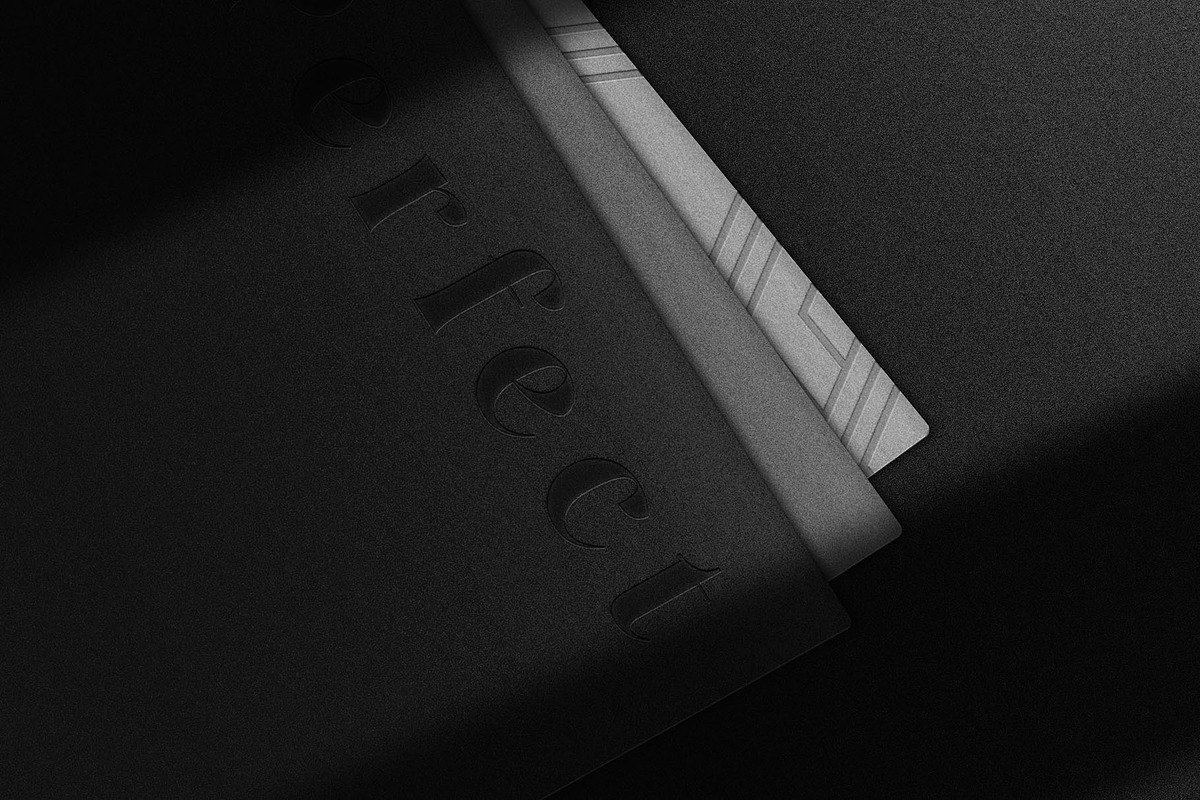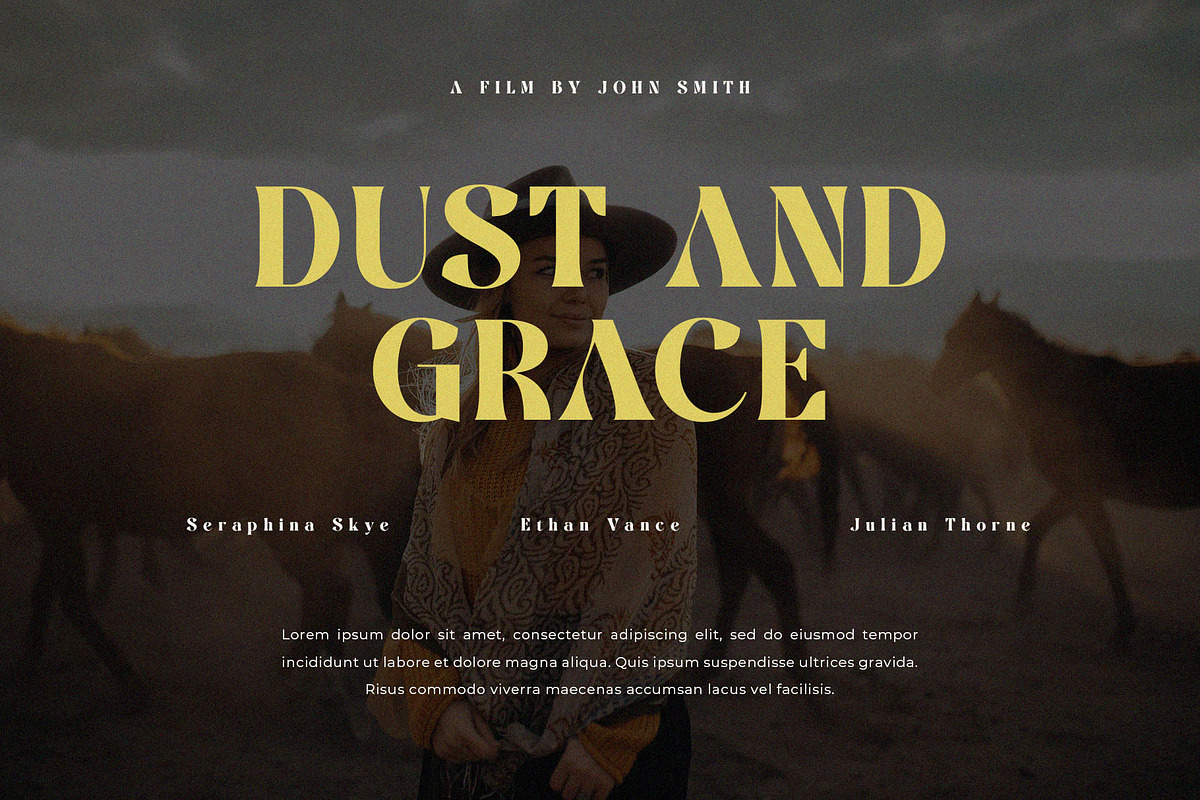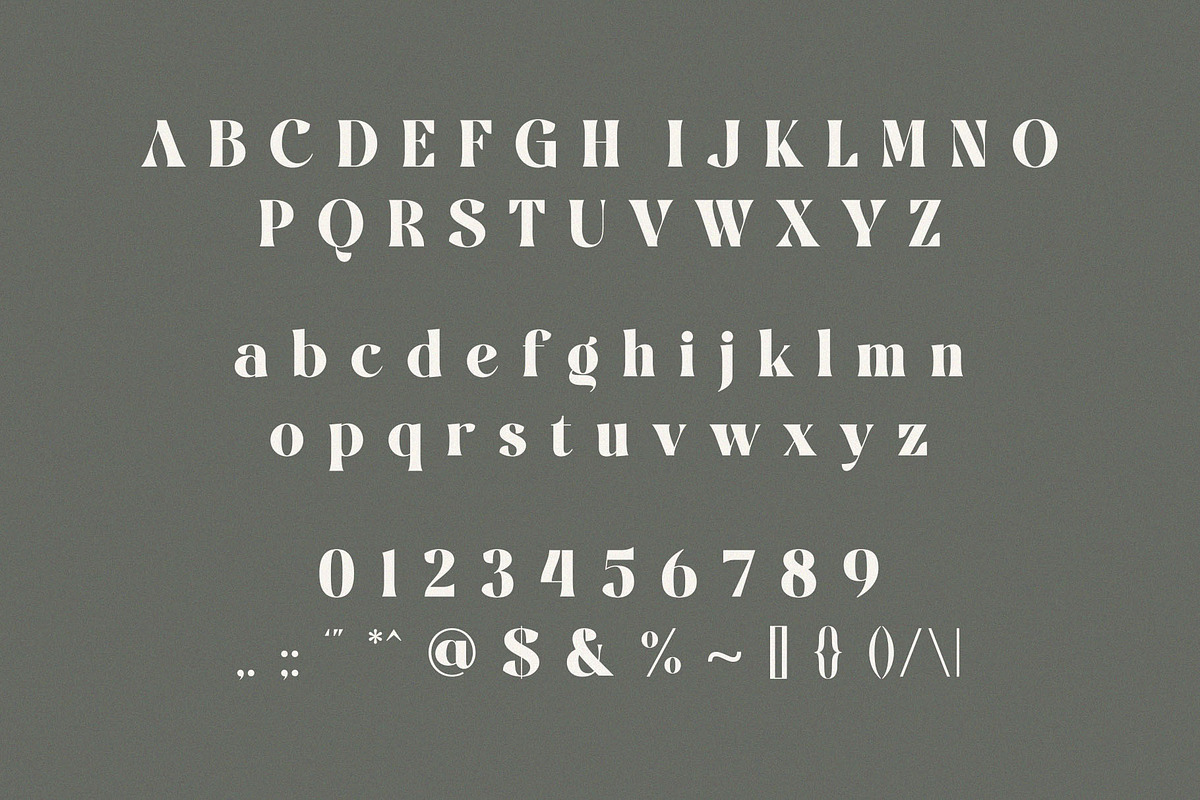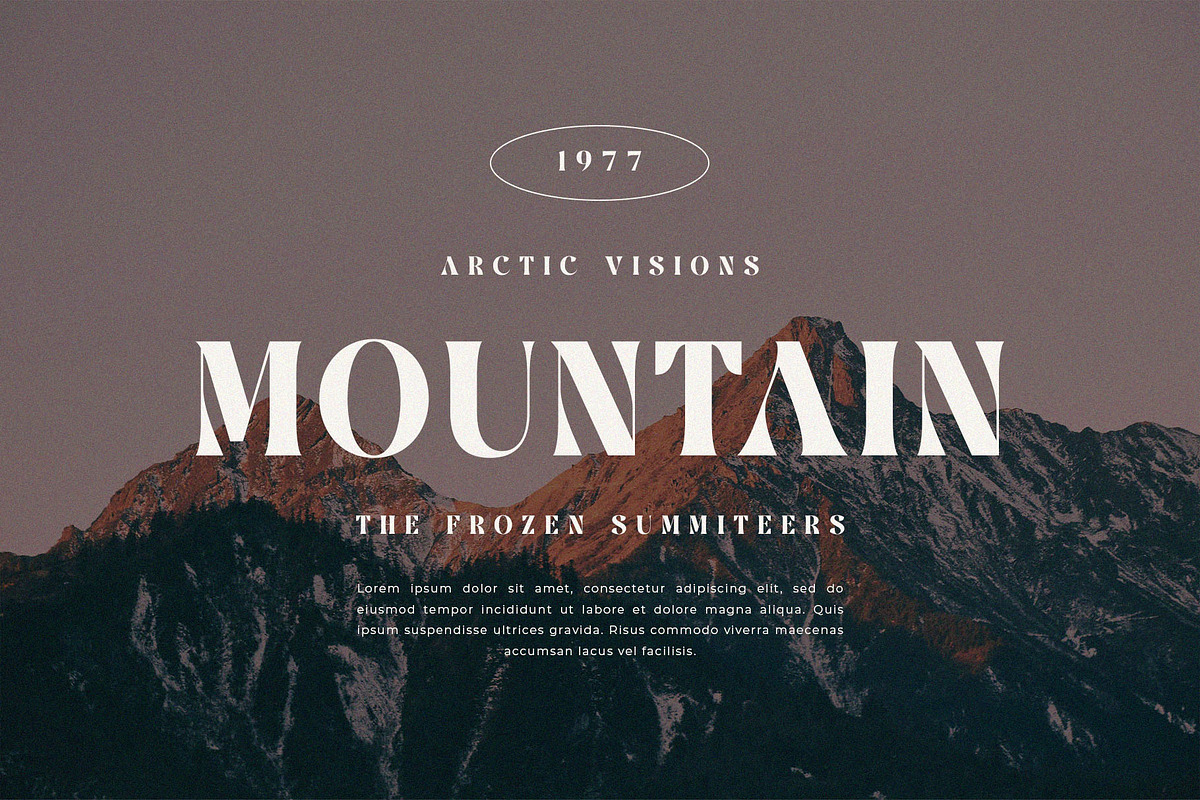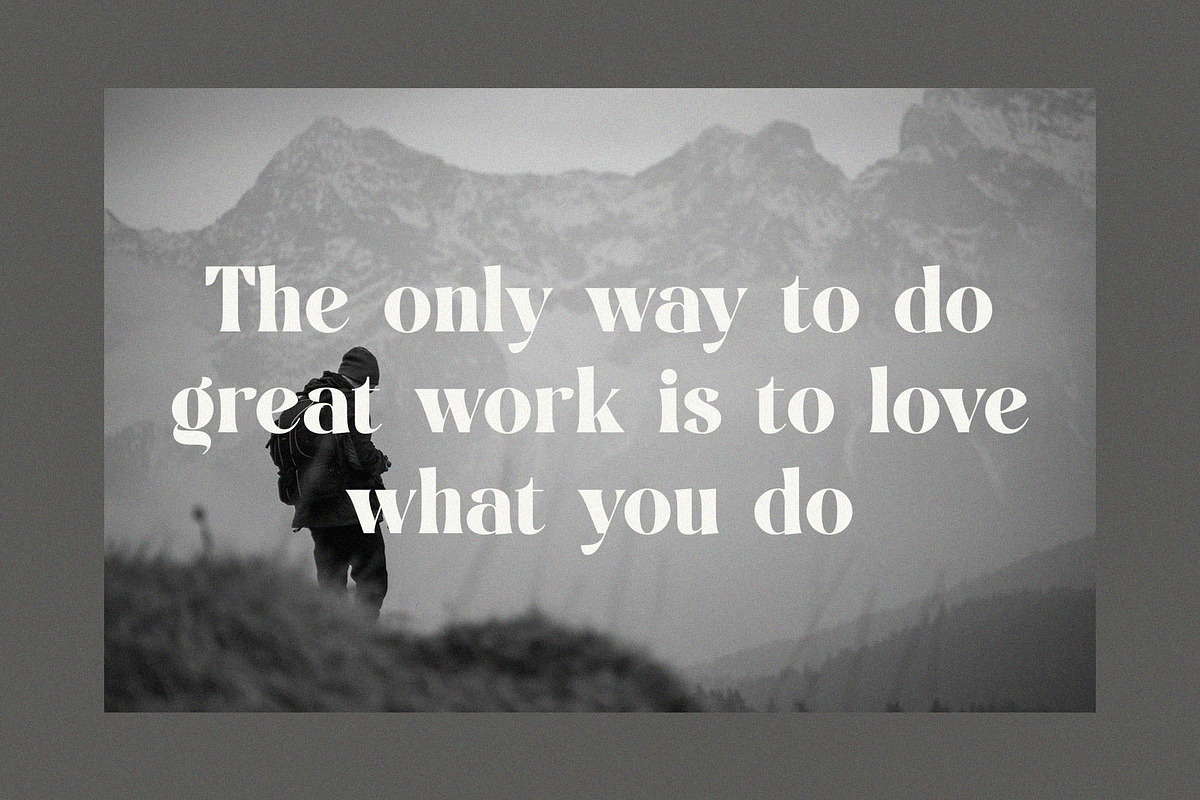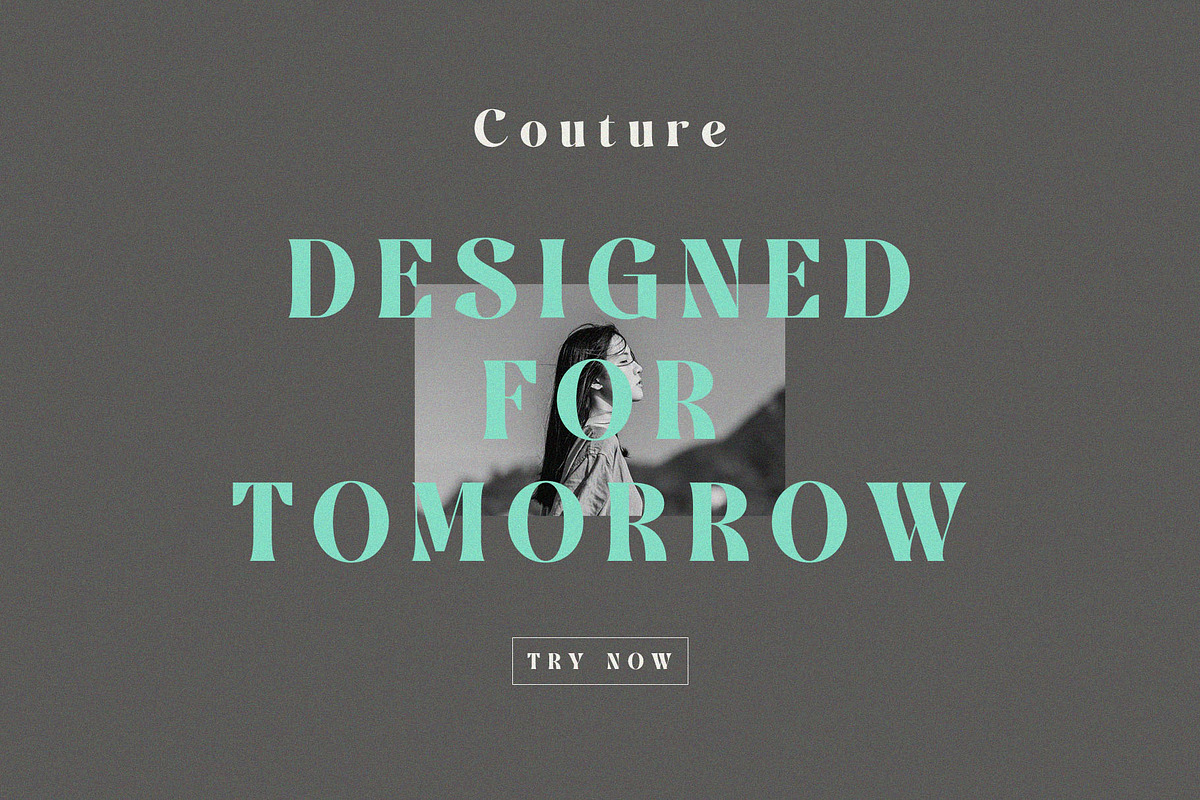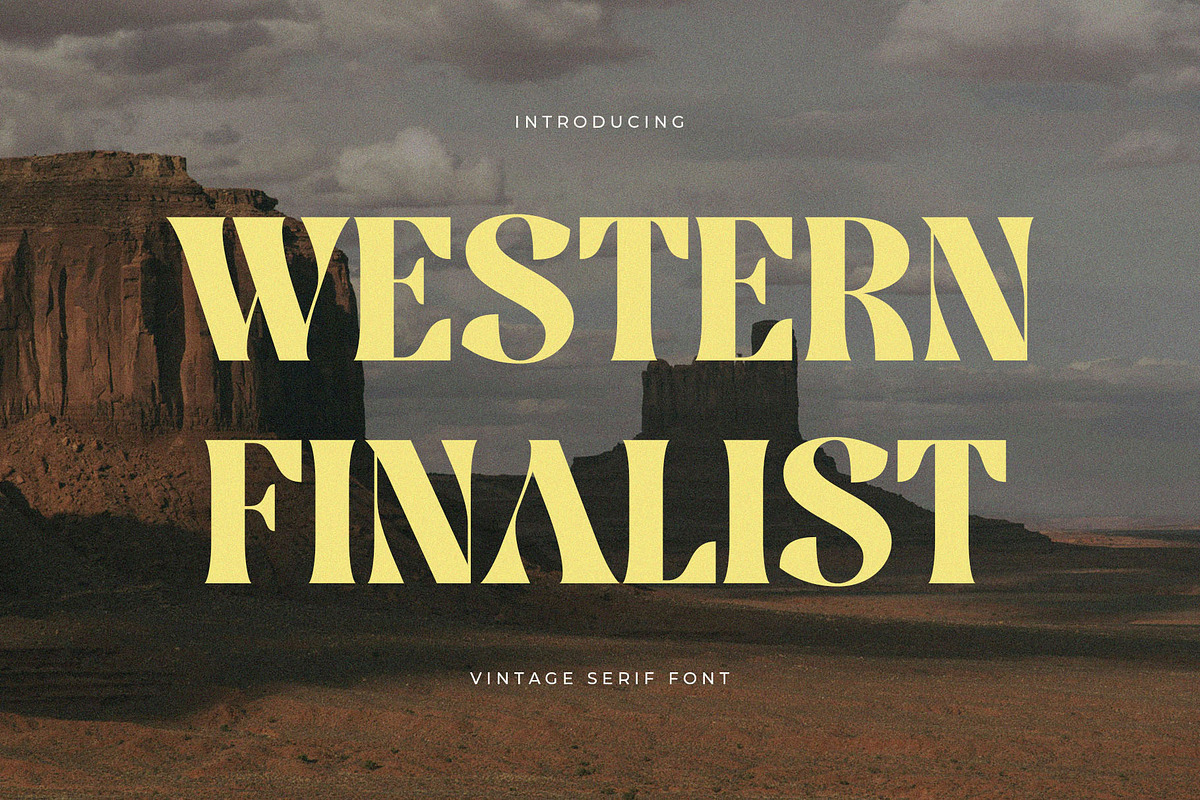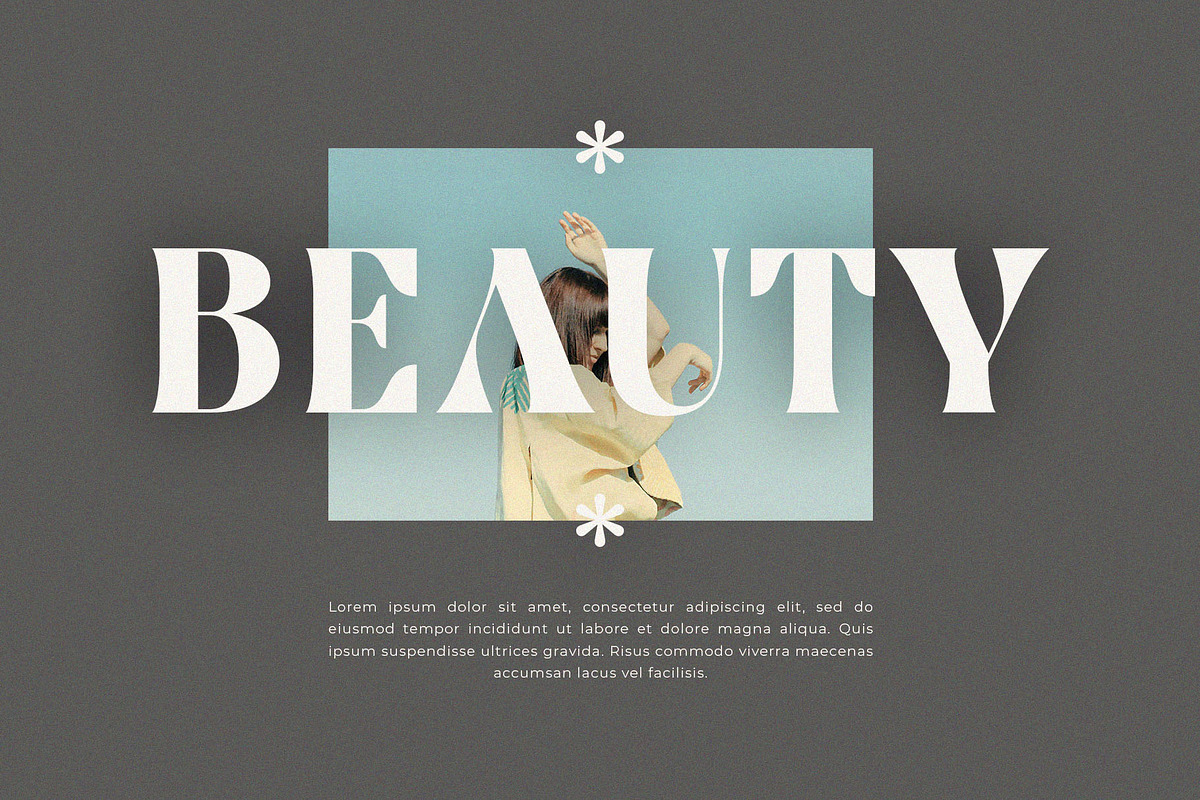
Western Finalist – Vintage Serif
Western Finalist – Vintage Western Serif Display Font for Retro Branding & Cowboy Posters
Western Finalist is a bold and rugged vintage serif display font inspired by classic Western typography. With dramatic curves, strong serifs, and high-contrast letterforms, this typeface brings an authentic retro feel that’s perfect for cowboy-themed posters, Americana branding, whiskey labels, outdoor gear, and editorial titles.
Blending timeless western aesthetics with modern display design, Western Finalist gives your projects a nostalgic, cinematic character — ideal for capturing attention and evoking adventure.
Best for:
- Western movie titles & retro posters
- Country music album covers
- Vintage signage & branding
- Outdoor apparel packaging
- Antique logos & Americana design
- Uppercase & Lowercase serif letters
- High contrast & bold presence
- Sharp, retro-inspired details
- Includes multilingual support
- Perfect for print & digital use
Capture the wild spirit of the West and stand out with Western Finalist, your go-to serif font for powerful vintage expression.